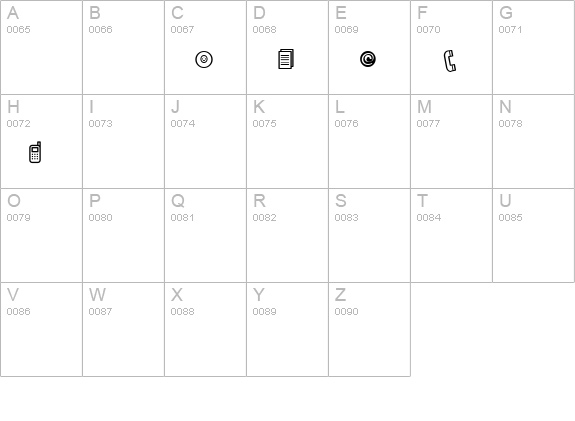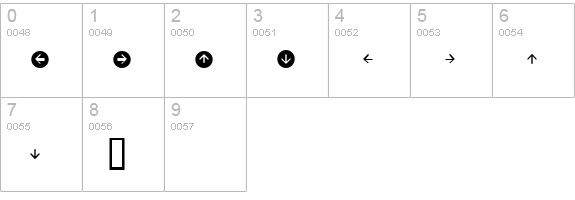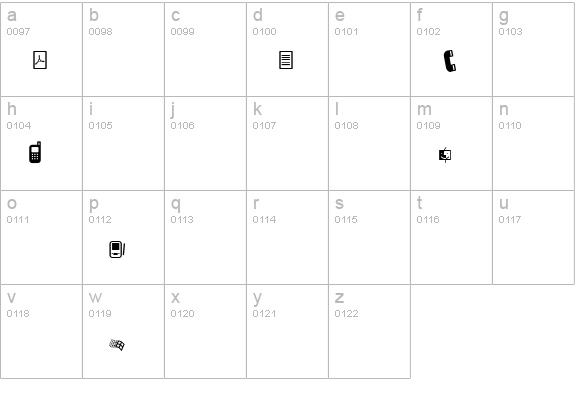
MonoDing Font Details
MonoDing font is a modern and stylish typeface that combines the simplicity of a monospaced design with unique and decorative dingbat elements. This versatile font is perfect for adding a touch of creativity and flair to your projects, whether you're designing a website, creating digital art, or crafting eye-catching print materials. With its clean lines and playful icons, MonoDing font is sure to make a statement and capture the attention of your audience. Its bold and distinctive characters can help to convey your message in a clear and engaging way. Best of all, MonoDing font is available for free download at FontsMarket.com. This means you can easily access this fantastic font and use it in all your personal and commercial projects without any cost. Don't miss out on the opportunity to add MonoDing font to your font library today!